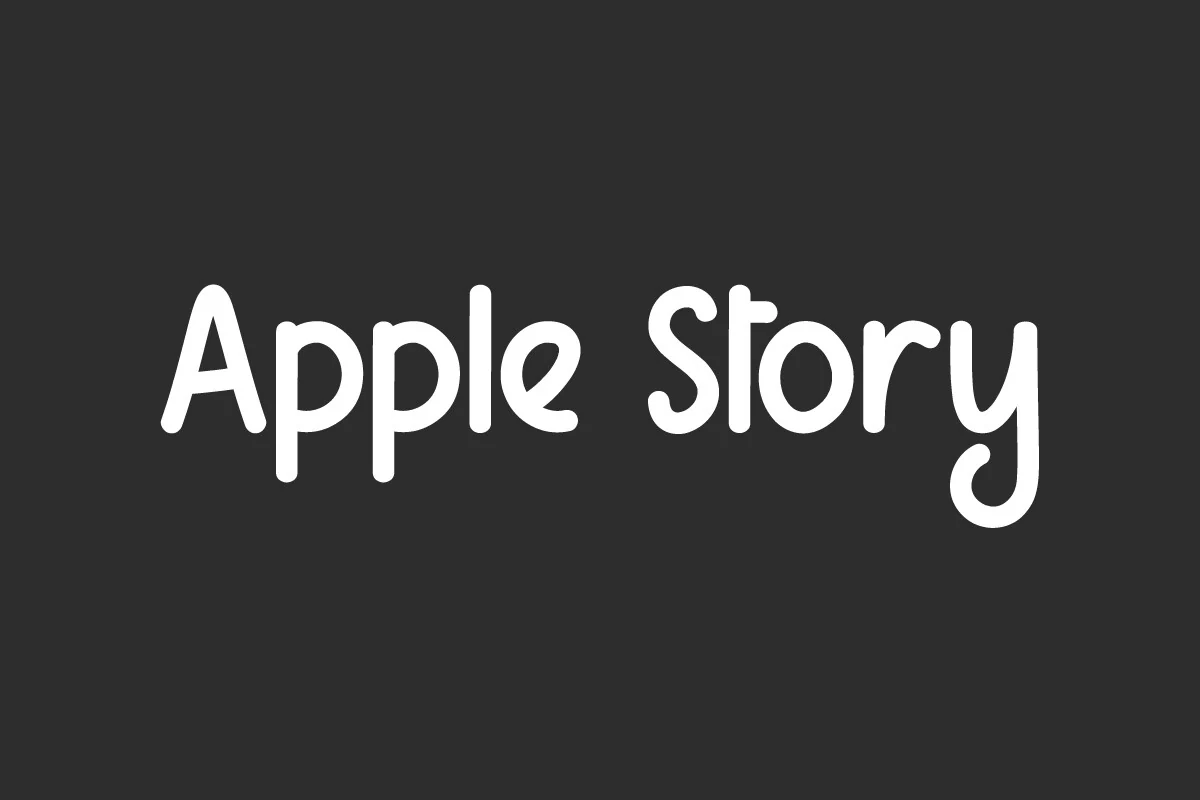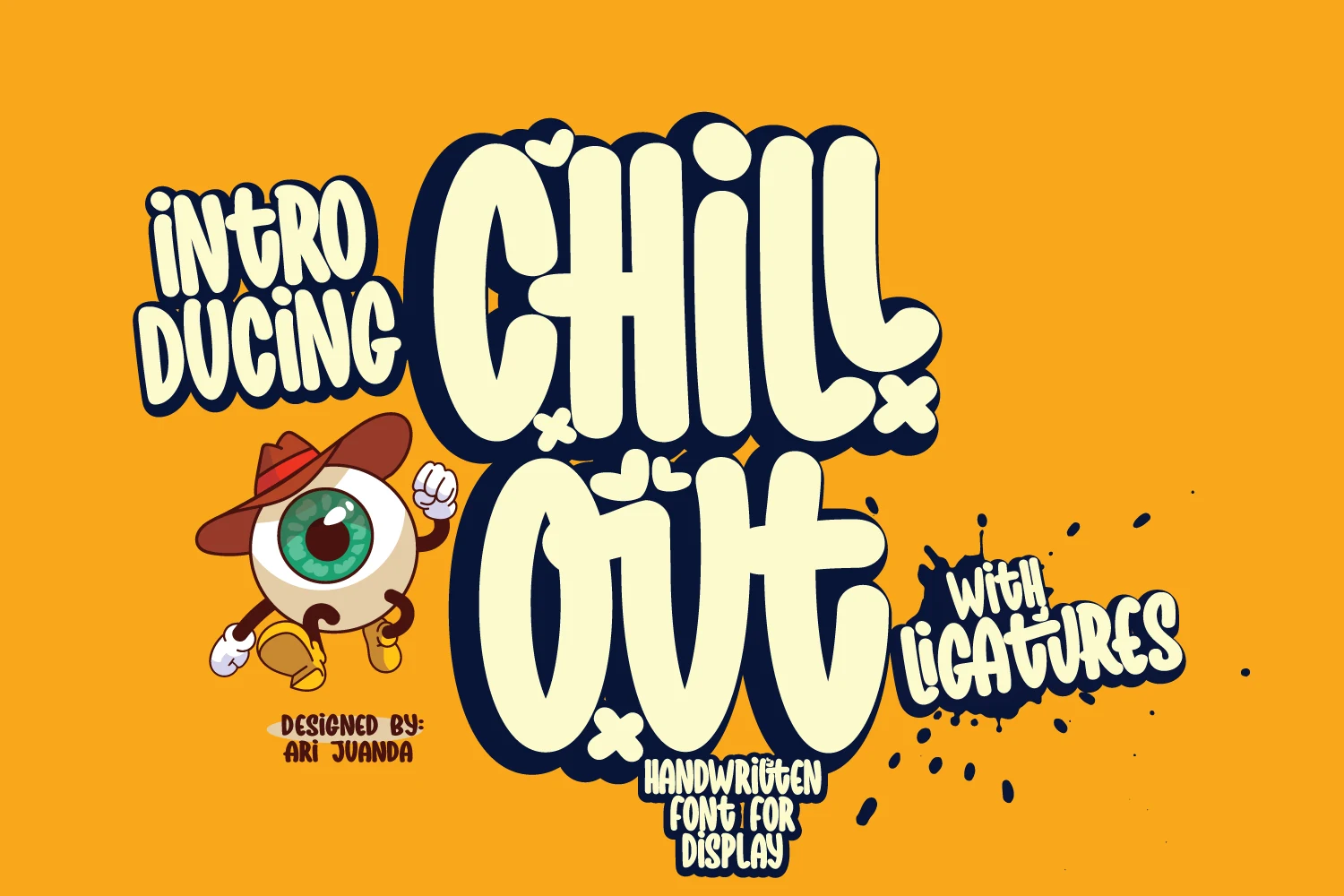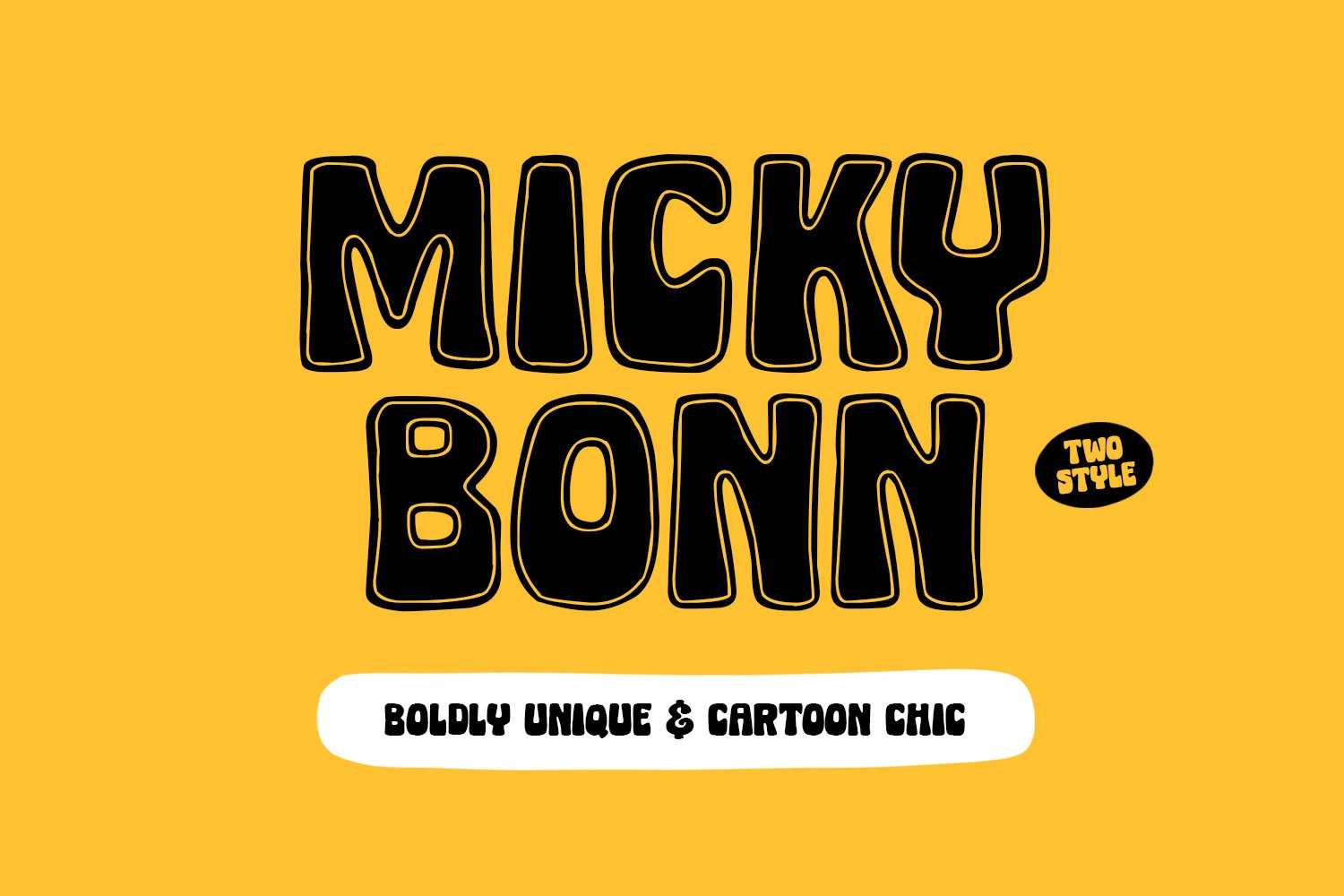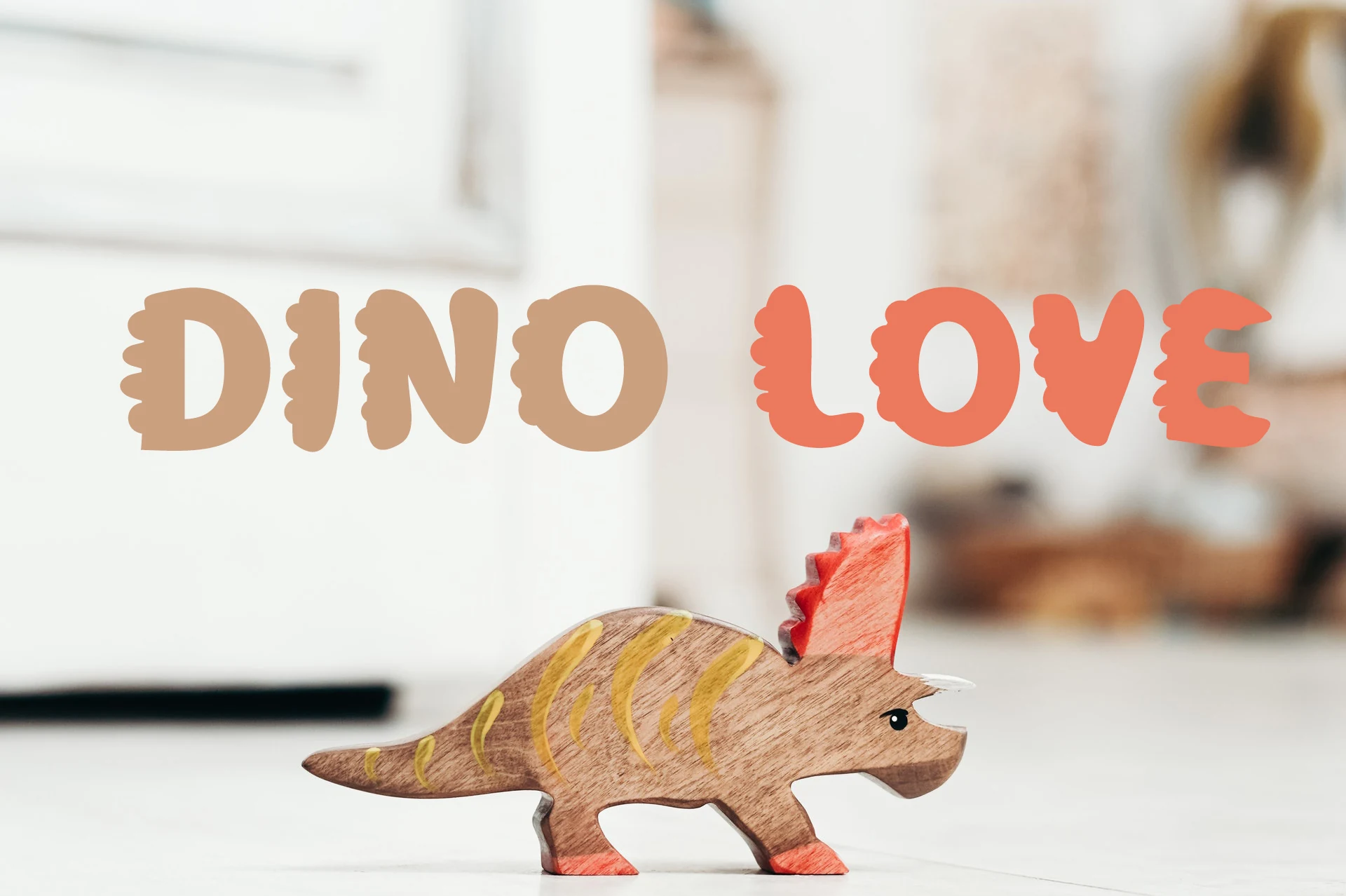
14 Creative Cute Cartoon Fonts for 2026
Cute Cartoon Fonts can bring instant personality to children’s projects, playful branding, merchandise, packaging, posters, and social graphics. This collection ranges from chunky rounded display faces and energetic comic styles to casual handwritten lettering, organic novelty designs, and retro dimensional treatments. Whether you need a bold headline or a softer storybook touch, these fonts offer cheerful options for expressive designs.
Cute Cartoon Fonts for Bold Display Designs
These chunky, rounded typefaces use strong shapes, thick strokes, and friendly proportions to make children’s branding, logos, posters, packaging, and merchandise stand out.
Cute Shark Font
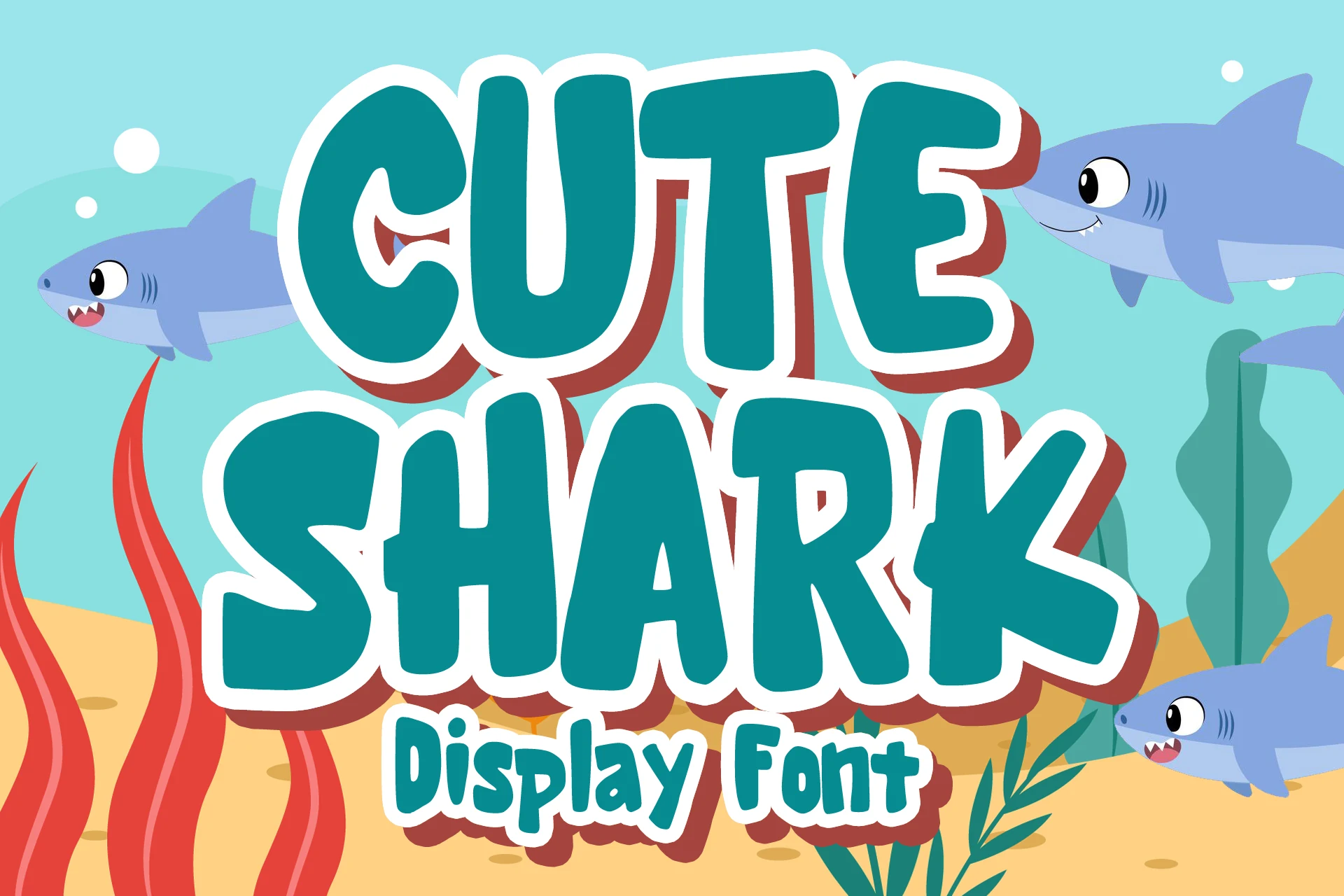
Best For: stickers, T-shirts, logos, children’s designs
Cute Shark has bold, rounded letterforms with soft terminals, thick strokes, and slightly irregular proportions that create a friendly cartoon rhythm. Its substantial shadow effect adds depth while preserving clear, open shapes at display sizes, giving the lettering the approachable energy associated with Cute Cartoon Fonts.
Use it for stickers, T-shirts, logos, and other short display messages where its playful weight can lead the visual hierarchy. Keep tracking moderate rather than tight, and place the lettering against a clean, contrasting background so the rounded forms and shadow remain easy to read.
Zingoo Font
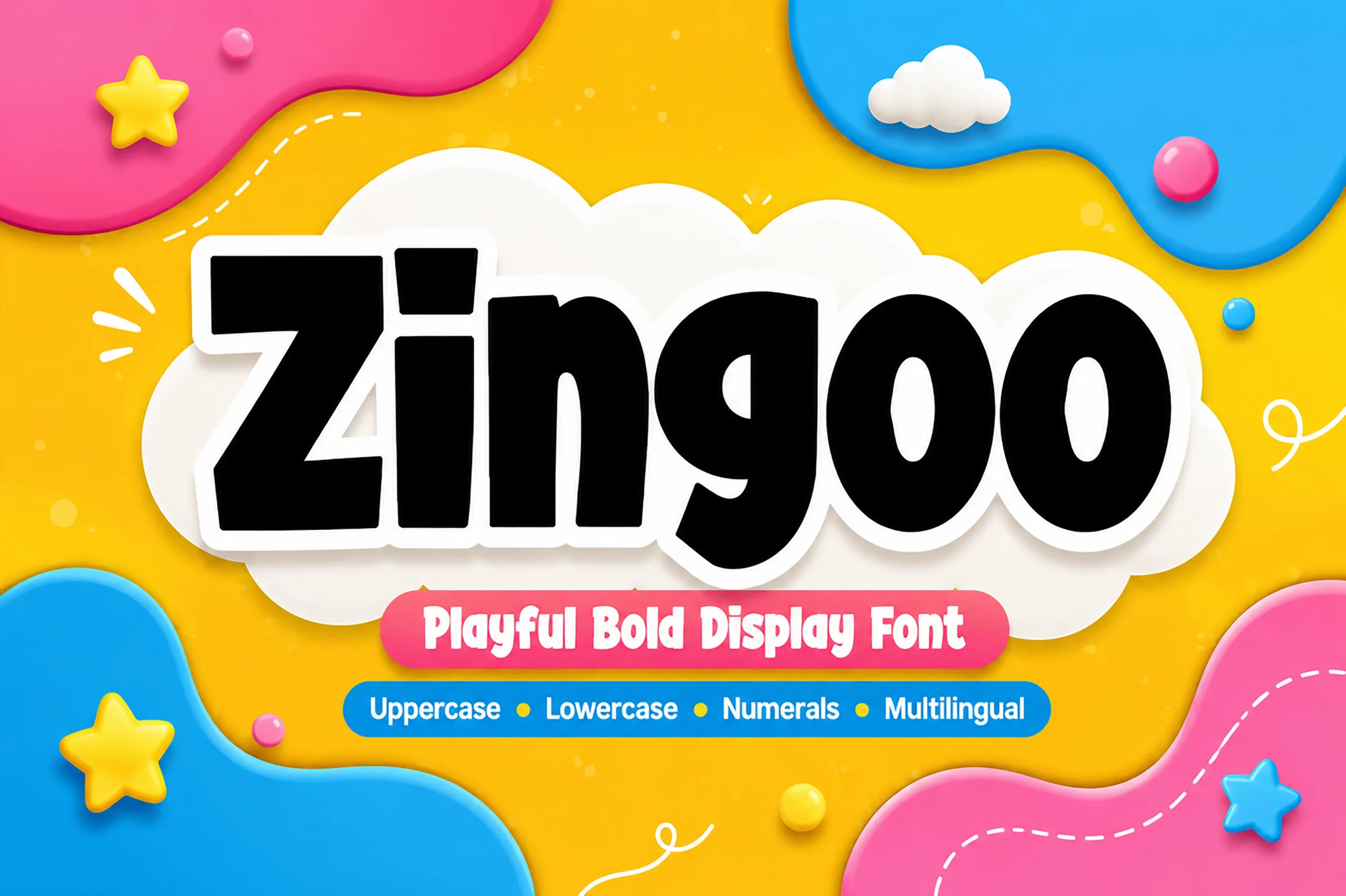
Best For: logos, packaging, children’s designs, stickers
Zingoo Font brings a sturdy, cheerful presence through heavy uniform strokes, rounded corners, upright condensed proportions, and soft, blunted terminals. Clear counters give the lettering definition, while its closed apertures add graphic solidity—the compact, friendly character often sought in Cute Cartoon Fonts.
Its bold silhouette suits logos, packaging, and short display messages where personality matters more than extended reading. Because the proportions are condensed, a little extra tracking can prevent titles from feeling crowded; pair the lettering with lighter supporting text and strong background contrast.
Bold Dream Font
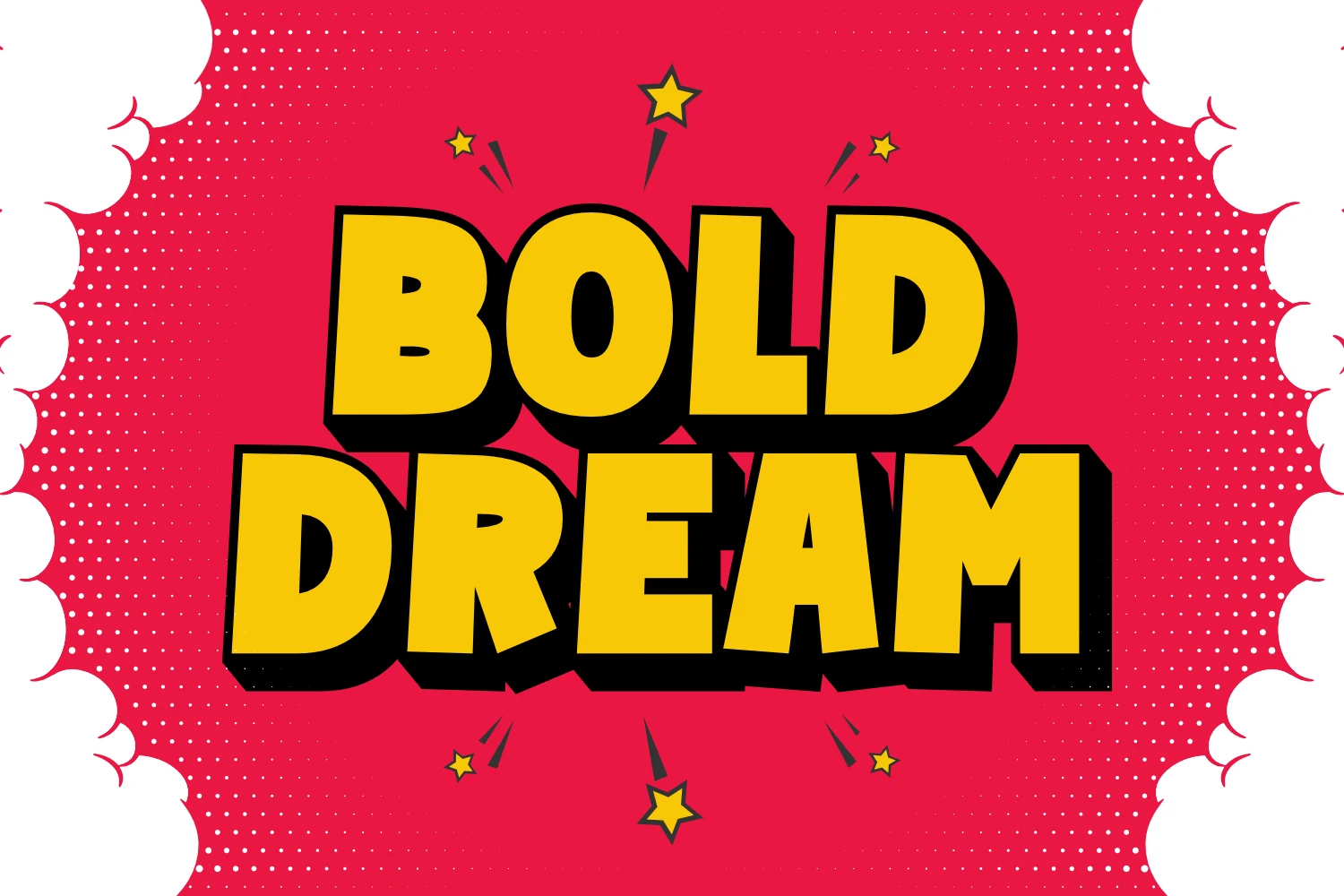
Best For: posters, T-shirts, book covers, playful designs
Bold Dream is a chunky display sans-serif with thick, monoline strokes, blocky geometric forms, and an upright stance. Its distinct letter shapes and playful weight give Cute Cartoon Fonts a strong, energetic presence without sacrificing headline readability.
The tight spacing creates a compact visual rhythm that works well for posters, apparel graphics, book covers, and bold signage. For cleaner title hierarchy, add generous tracking to shorter words and place the lettering against a simple, high-contrast background.
Super Kidly Font
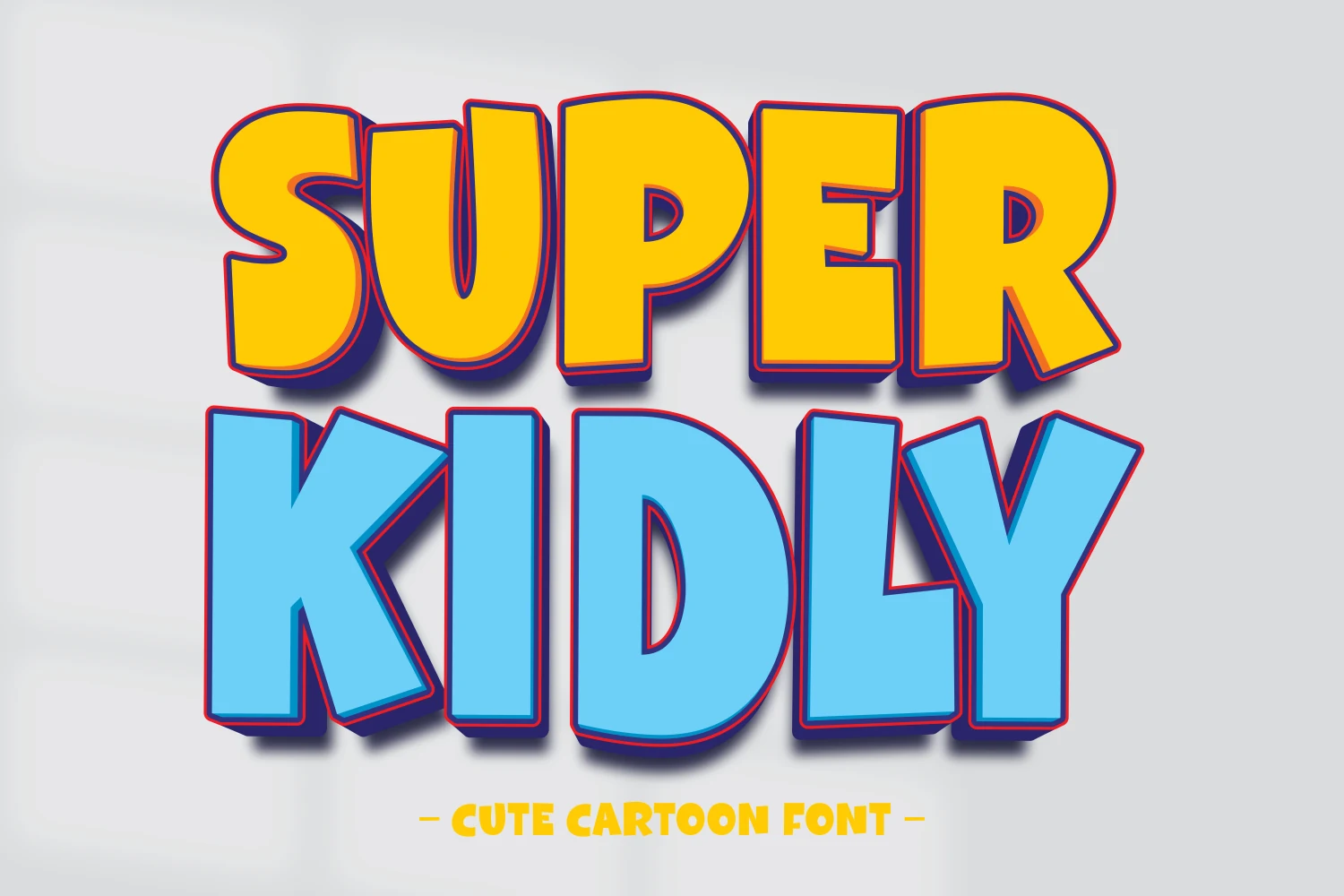
Best For: children’s designs, packaging, playful designs, display text
Super Kidly brings the bounce associated with Cute Cartoon Fonts through chunky, wide sans-serif letters, rounded corners, and a gently irregular baseline. Its bold 3D layering, bright outline, and drop shadow create an energetic animated feel while keeping the letterforms clear at display sizes.
Use it for children’s products, playful packaging, animated titles, or other short, high-impact messages. Keep generous spacing between words so the heavy forms and dimensional effects do not merge, and set supporting text in a lighter, simpler style to preserve hierarchy.
Just Beyond Font
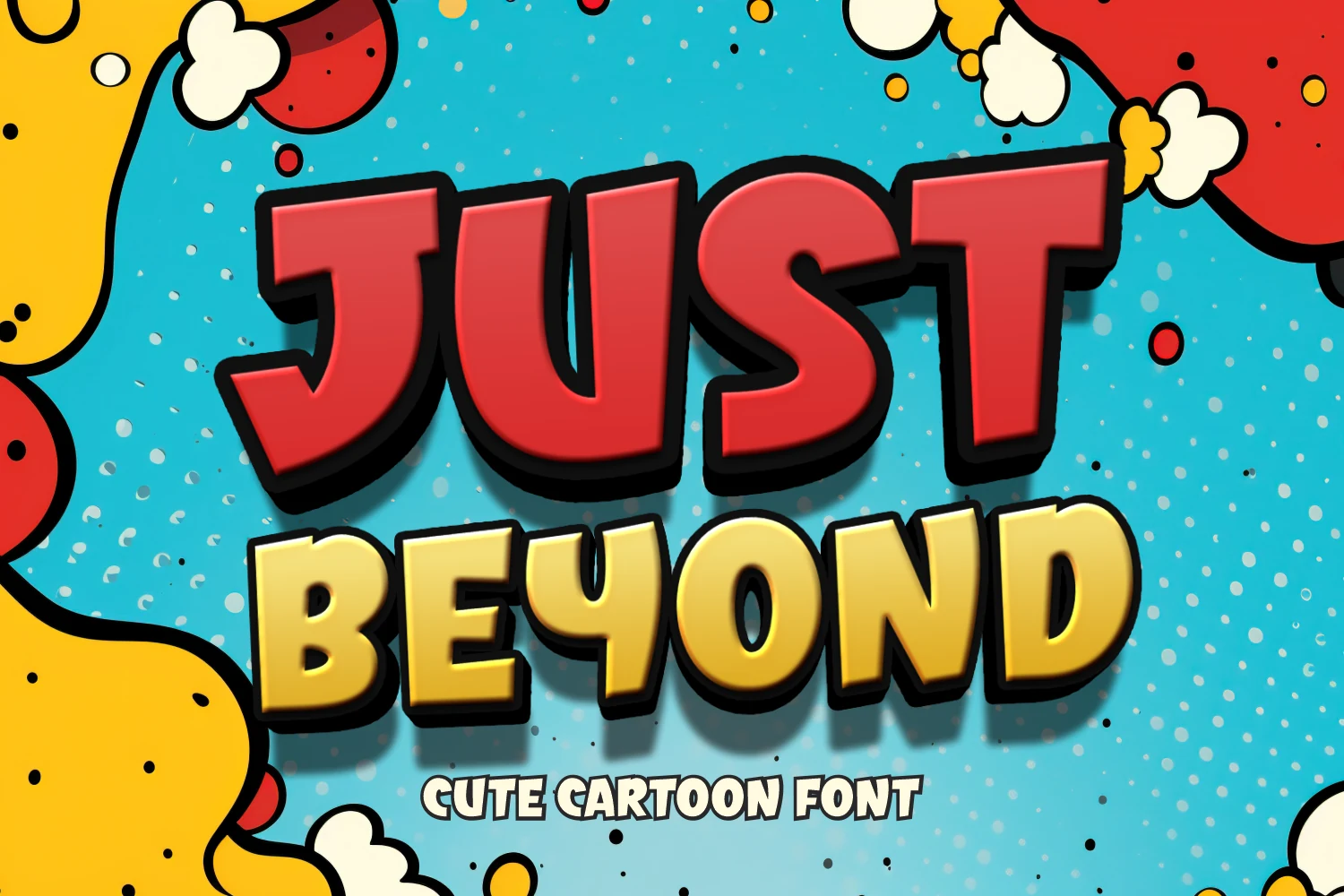
Best For: children’s designs, playful designs, invitations, posters
Just Beyond brings the lively shape language associated with Cute Cartoon Fonts, using thick, uniform strokes, rounded bubbly forms, and chunky proportions. Its standalone characters feel energetic and informal, while the clean shapes keep short messages easy to recognize.
The bold silhouette suits cheerful titles, children’s graphics, and playful branding, especially when the lettering is given enough scale to preserve character distinction. Keep tracking slightly open in crowded words, and use strong background contrast so the rounded forms and dimensional shadow remain clear.
Catchora Font
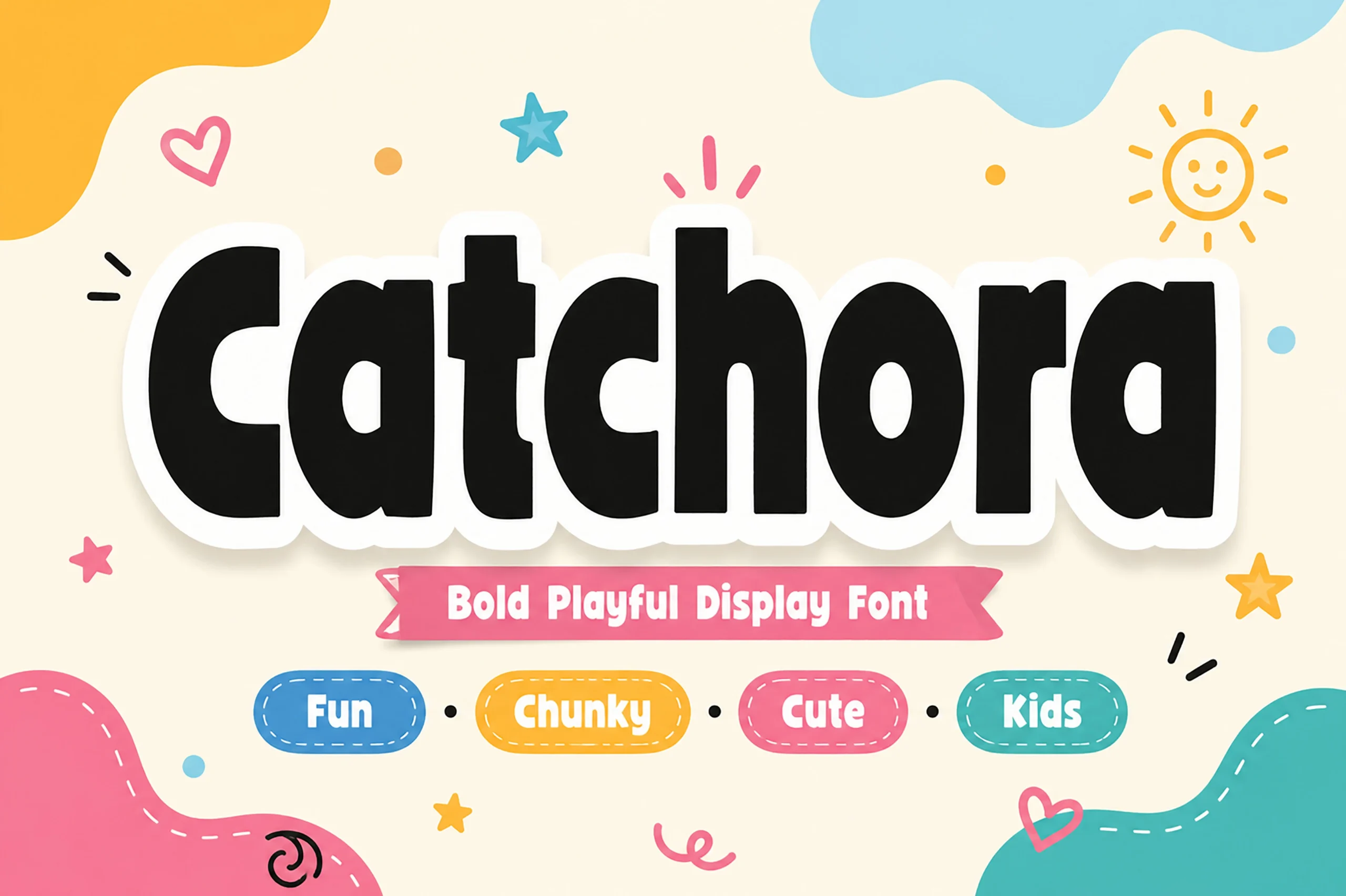
Best For: children’s designs, playful designs, logos, packaging
Catchora is a bold display sans serif with thick, even strokes, compact proportions, and a large x-height. Softly rounded terminals give its upright letters a friendly, approachable shape, while generous spacing keeps the chunky forms clear and easy to read.
Its cheerful character places it comfortably among Cute Cartoon Fonts, making it a natural fit for children’s designs, playful logos, and lively packaging. Keep tracking moderate and use strong background contrast so the heavy lettering stays crisp, especially in dense headlines or short labels.
Cute Cartoon Fonts with Handwritten and Organic Charm
Looser letterforms, bouncy movement, and hand-drawn details give these styles a warm, spontaneous personality suited to stickers, invitations, headlines, and whimsical children’s designs.
Use it for display text, children’s designs, and other short messages where its heavy weight can stay clear at a glance. Slightly open tracking helps the broad characters read cleanly, while strong background contrast preserves their rounded shapes and glossy effect.
Conclusion
Choose the bold display category for clear, high-impact lettering, the handwritten group for a more personal and playful feel, or the retro dimensional styles when your project needs extra visual energy. Together, these Cute Cartoon Fonts cover a flexible range of cheerful design directions.